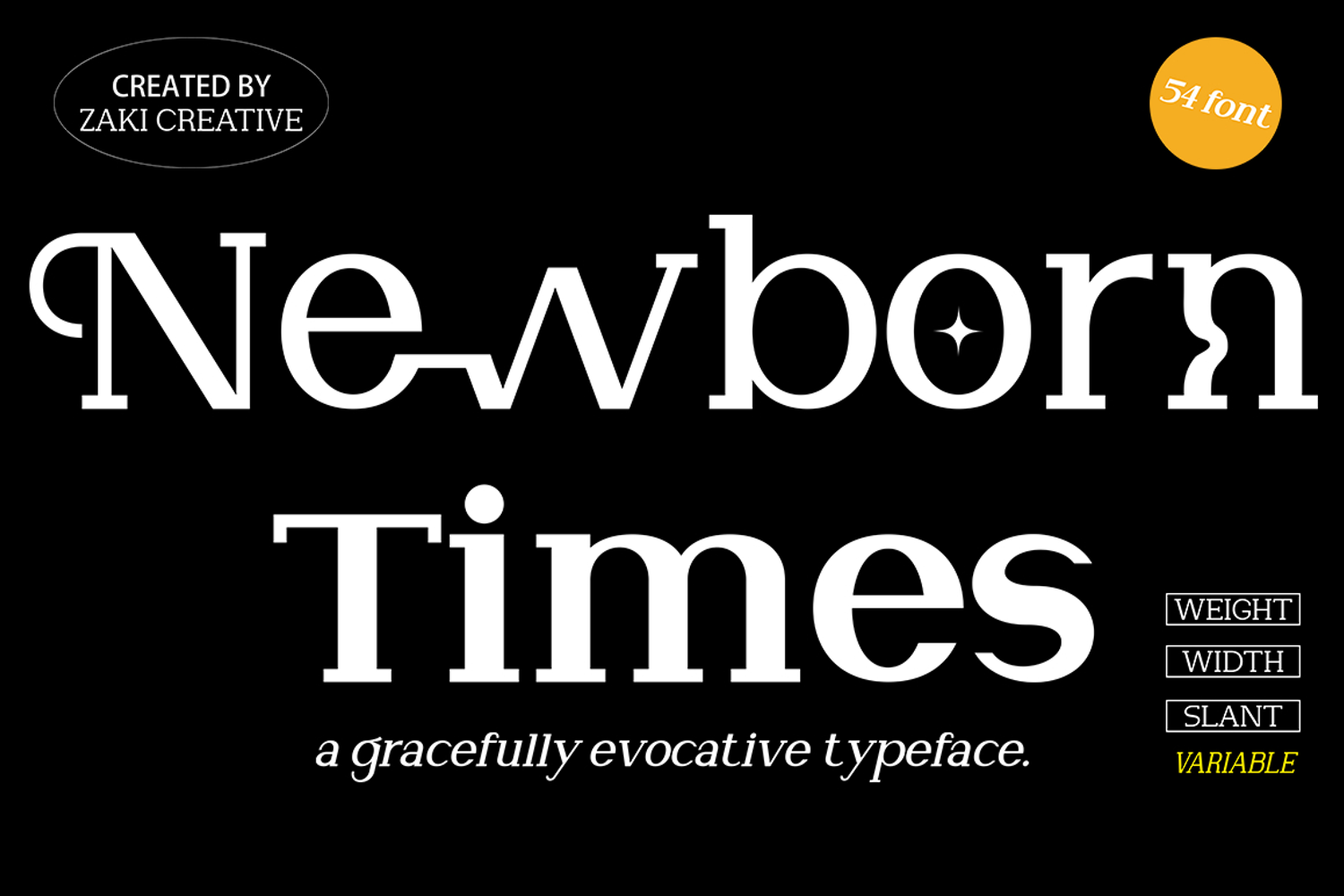
Newborn Times 54 Fonts
Newborn Times is a gracefully evocative serif typeface designed to bring timeless elegance to your typography. With 54 fonts in total—covering multiple weights, widths, and slants—it offers complete versatility for branding, editorial design, packaging, invitations, and sophisticated digital experiences.
Every curve is crafted with precision, balancing classic beauty and modern functionality. From delicate thin styles to commanding bold weights, Newborn Times adapts seamlessly to any creative vision. The variable font option allows ultimate flexibility, making it a powerful tool for designers who demand both aesthetics and performance.
Whether you’re crafting a luxury brand identity, editorial headlines, or high-fashion campaigns, Newborn Times is more than a font—it’s a statement of elegance.